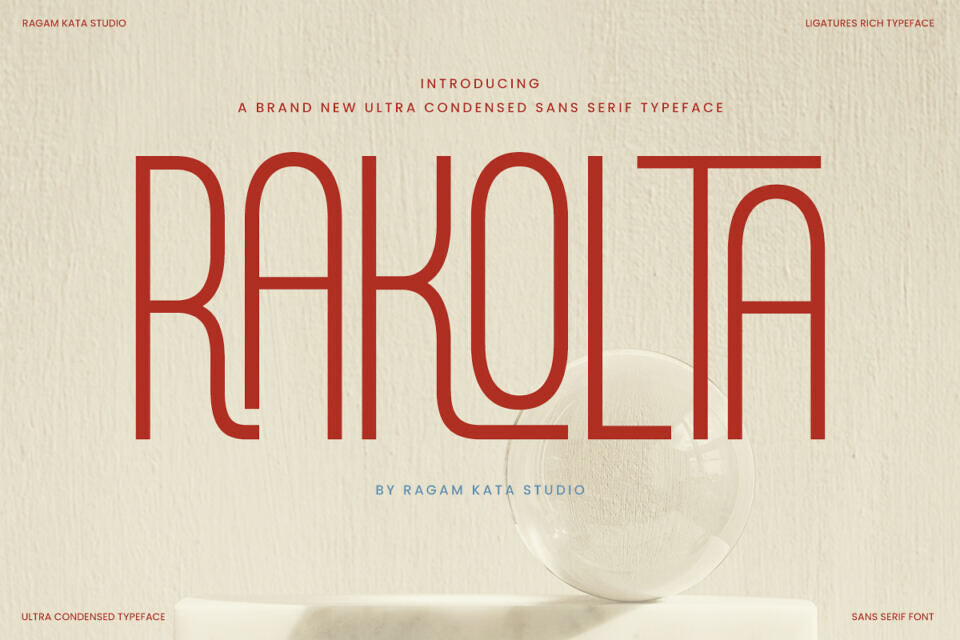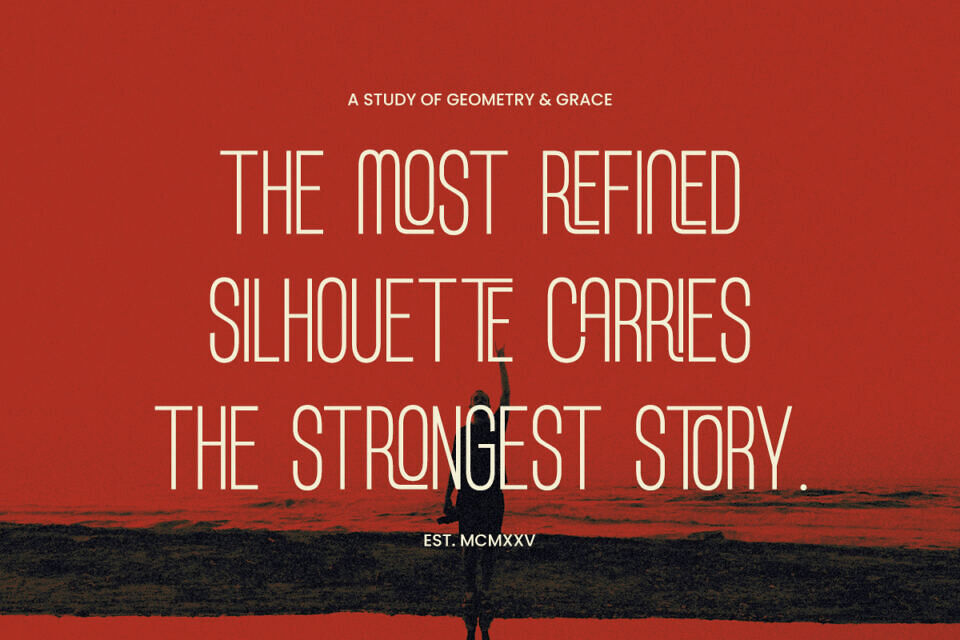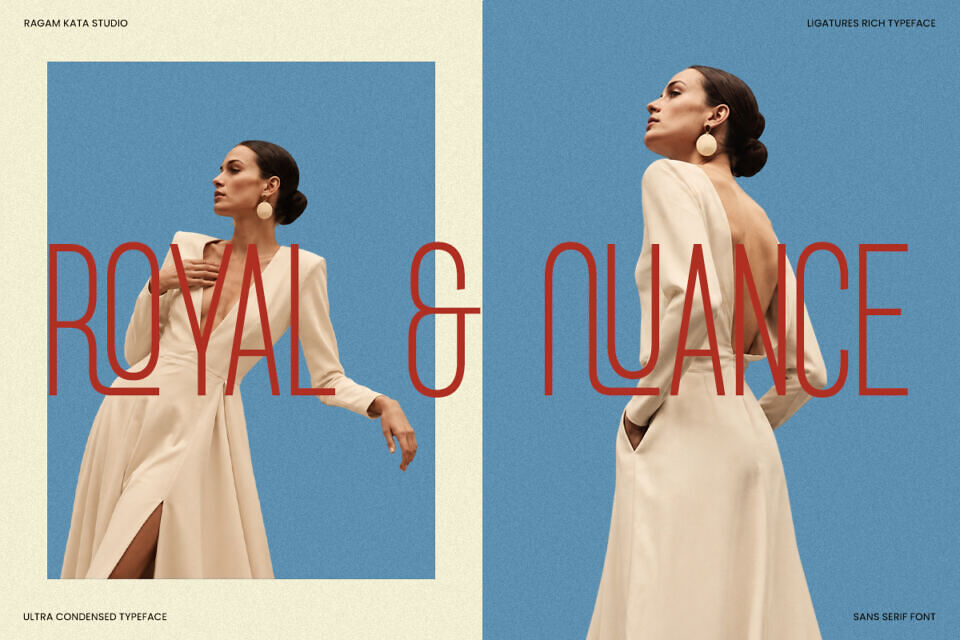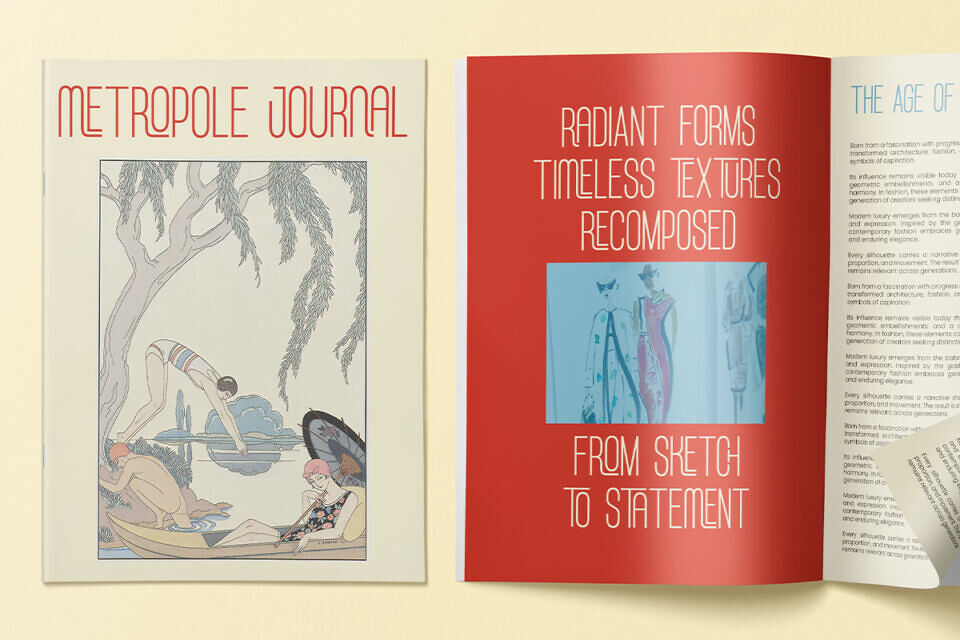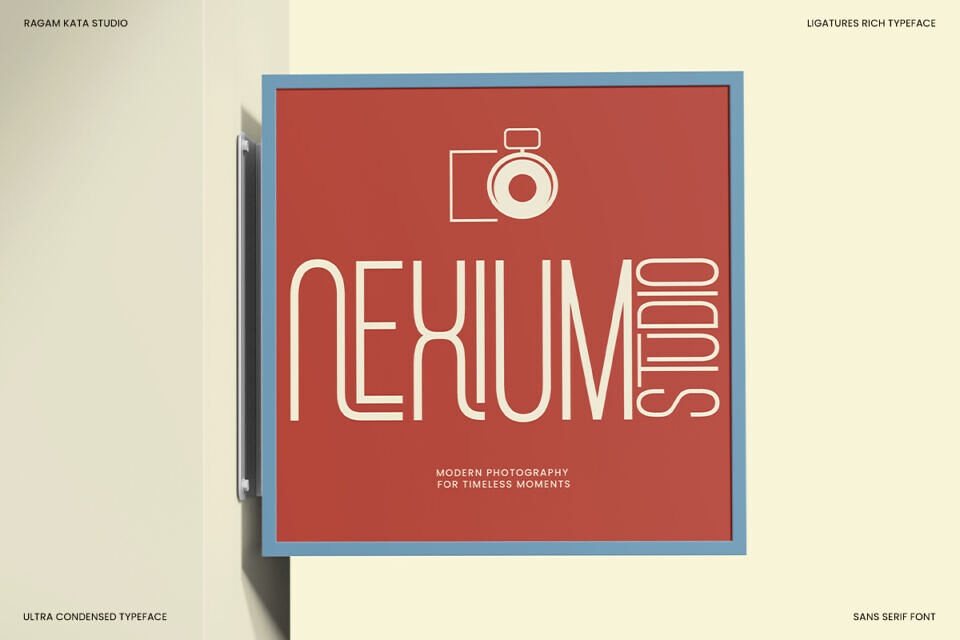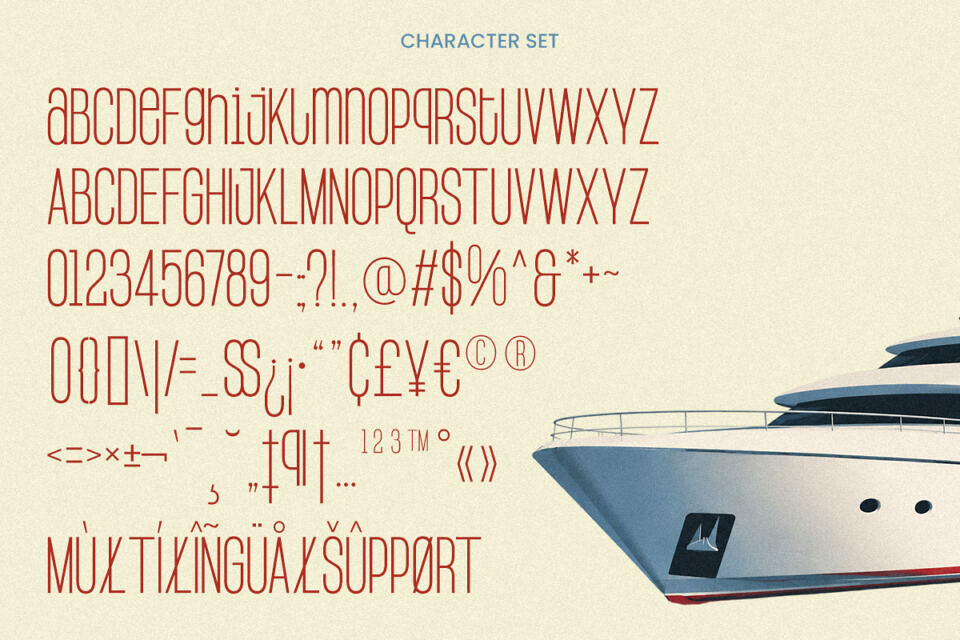
Rakolta Font
Rakolta is an ultra condensed sans serif typeface crafted to bring elegance, sophistication, and modern minimalism into a single visual language. Its condensed structure allows headlines to command attention without overwhelming layouts, while the rich ligature system introduces a unique personality that elevates logos, wordmarks, magazine titles, packaging, and advertising campaigns.
From luxury fashion brands and beauty products to editorial layouts, wedding stationery, photography identities, and lifestyle businesses, Rakolta provides a sophisticated typographic voice that communicates confidence, refinement, and modern elegance.